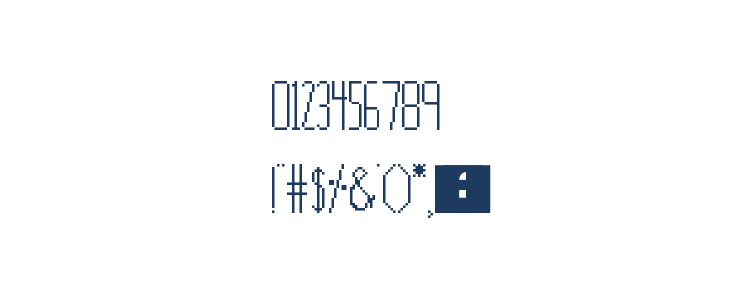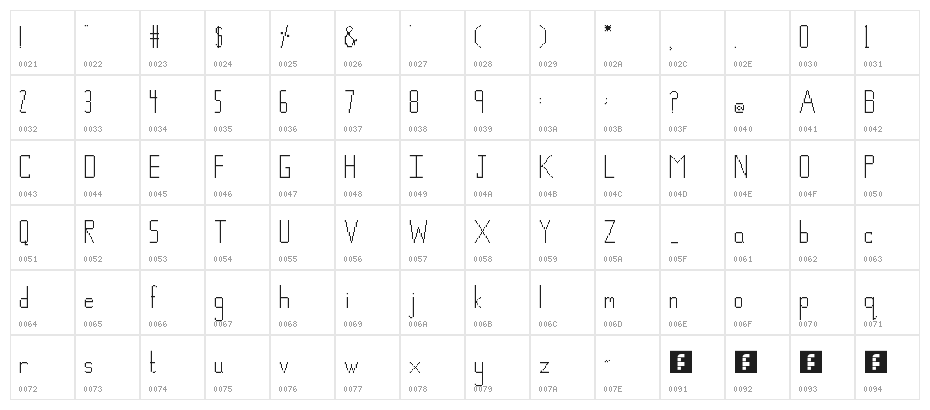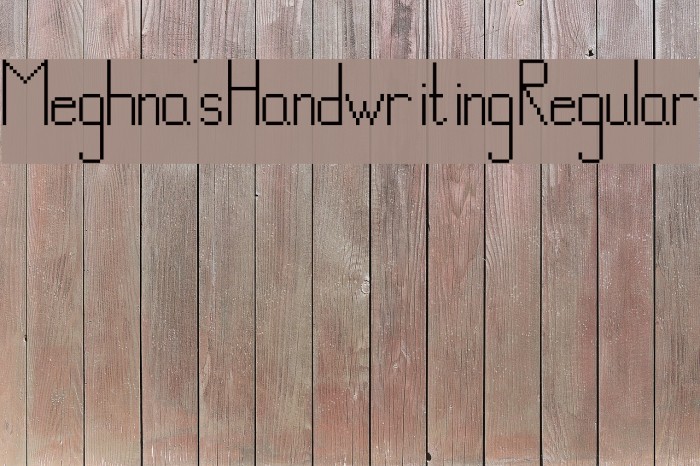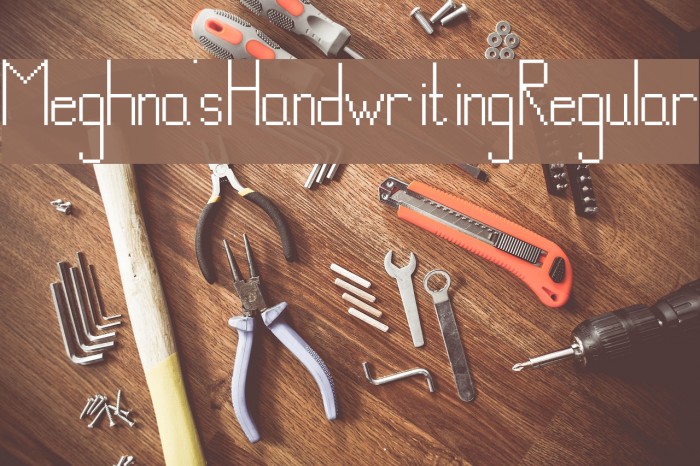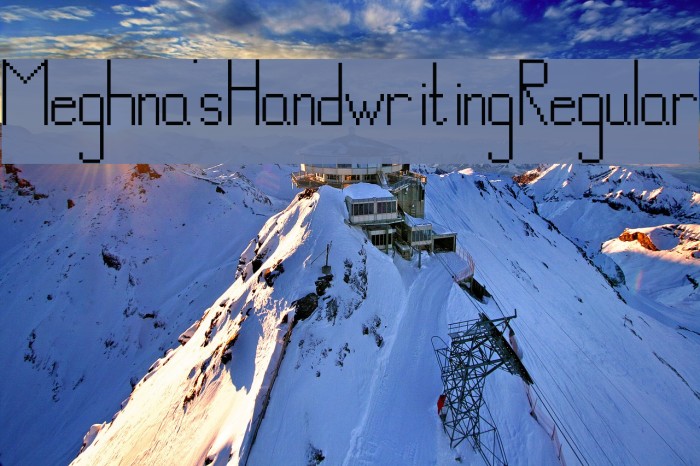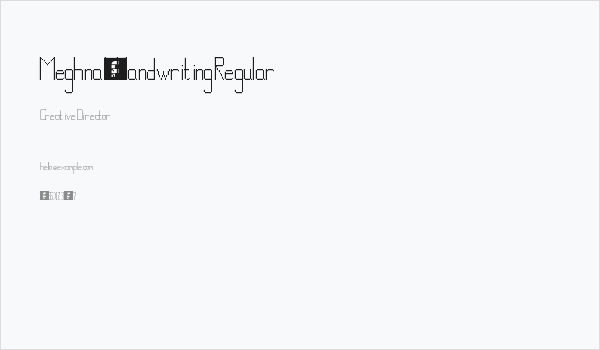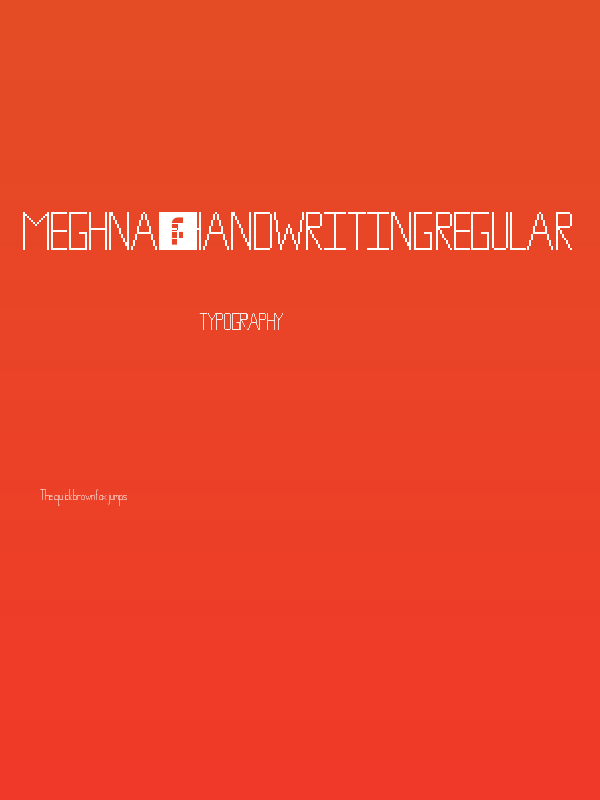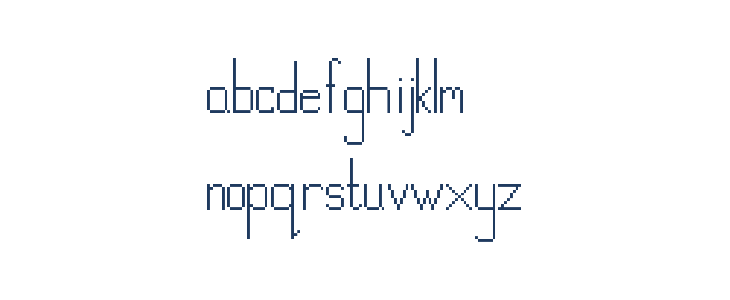
Meghna's Handwriting Regular Font
Meghna's Handwriting Regular Description
This font features a distinctive, pixelated style reminiscent of early digital text displays. Each character is composed of small, square blocks, giving it a retro, digital aesthetic. The uppercase and lowercase letters maintain a consistent height and width, contributing to a uniform appearance. The numerals and special characters follow the same blocky design, ensuring cohesion across all elements. This font's unique style makes it stand out, offering a nostalgic nod to vintage computing while maintaining readability.
| Use Case | Logos, Headlines, Digital Art |
| Proposed Projects | Ideal for projects that require a vintage digital look, such as retro video games, tech-themed posters, or digital art projects. |